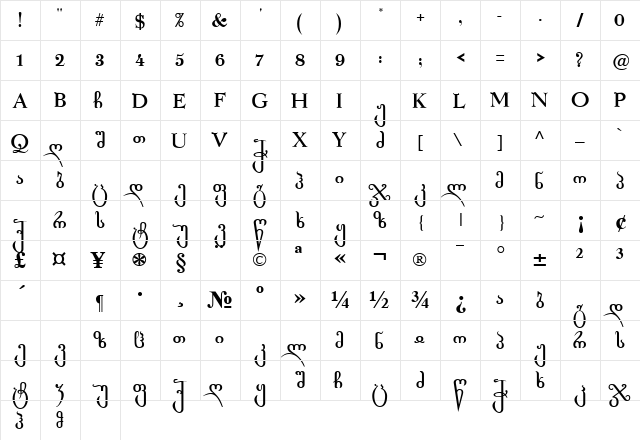
Rustaveli Regular
Design Context for Rustaveli Typeface
Rustaveli takes a measured approach to typography — its balanced proportions and neutral character make it a reliable workhorse for both digital and print work.